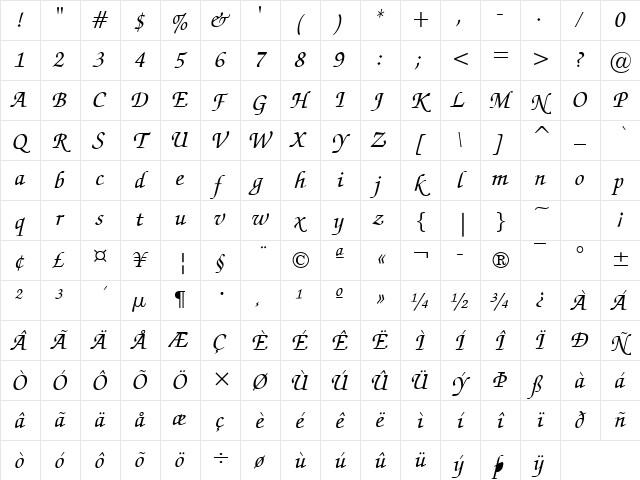
Chancellor Italic
Design Context for Chancellor
Chancellor is a composed and adaptable typeface that performs quietly and consistently across a wide range of design contexts. The slanted form adds forward momentum and visual energy.
Pro Tip: Use Chancellor for emphasis, pull quotes, and subheadings where its slanted energy can add rhythm to the layout.